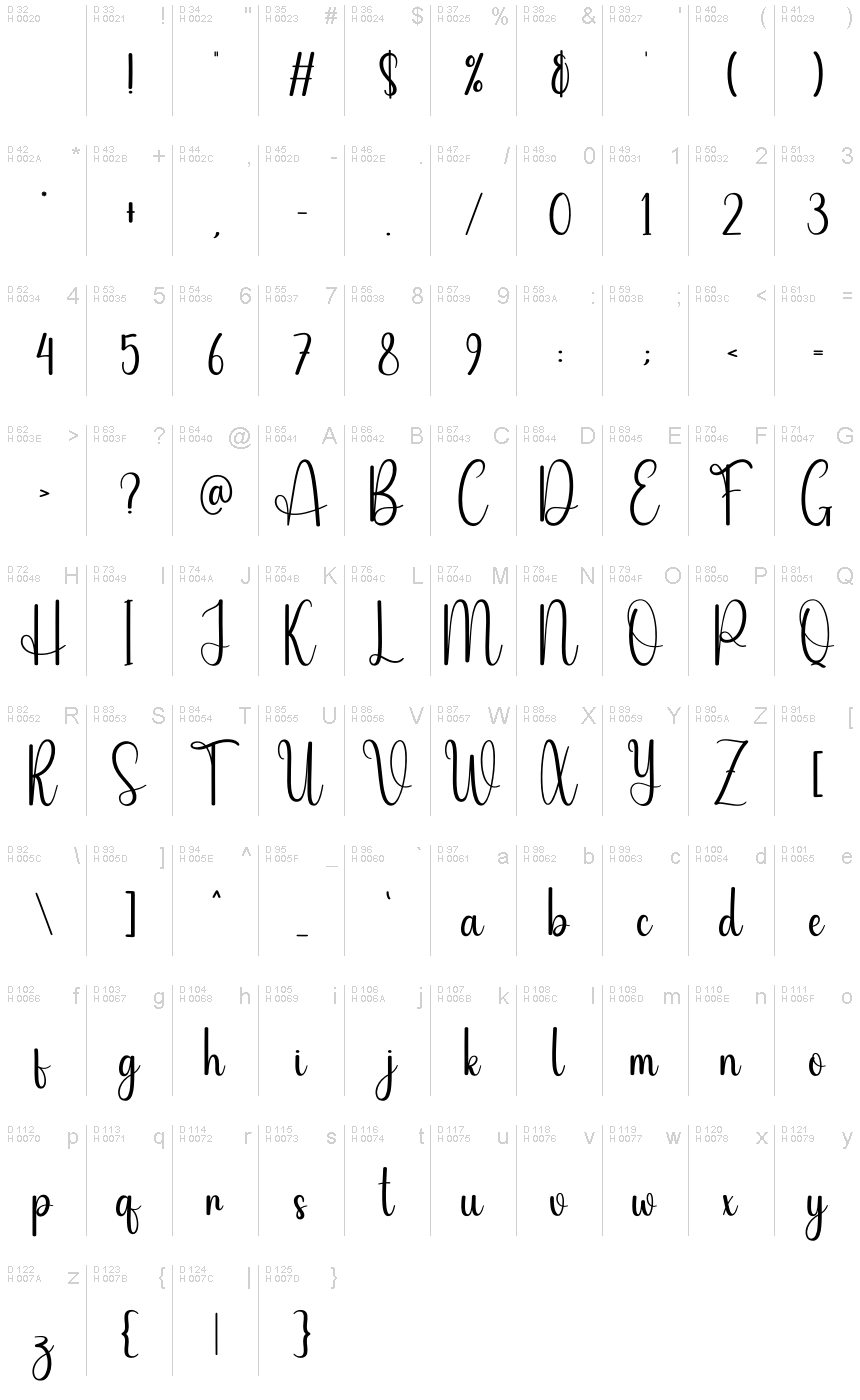
Disable
Disable font, designed by Scratchones, embodies a striking handwritten style that exudes charm and personality. With an artistic flair, its elegantly crafted strokes create a sense of warmth and informality, making it perfect for projects that seek to engage audiences on a personal level.
The graceful curvatures give the font a whimsical character, while its lighter appearance enhances readability without sacrificing style. Suitability for use in branding, invitations, or creative content ensures that Disable can effortlessly infuse life into any design context. Whether evoking nostalgia or adding a contemporary twist to classic themes, this font promises to be a captivating choice for conveying messages with authenticity and flair.